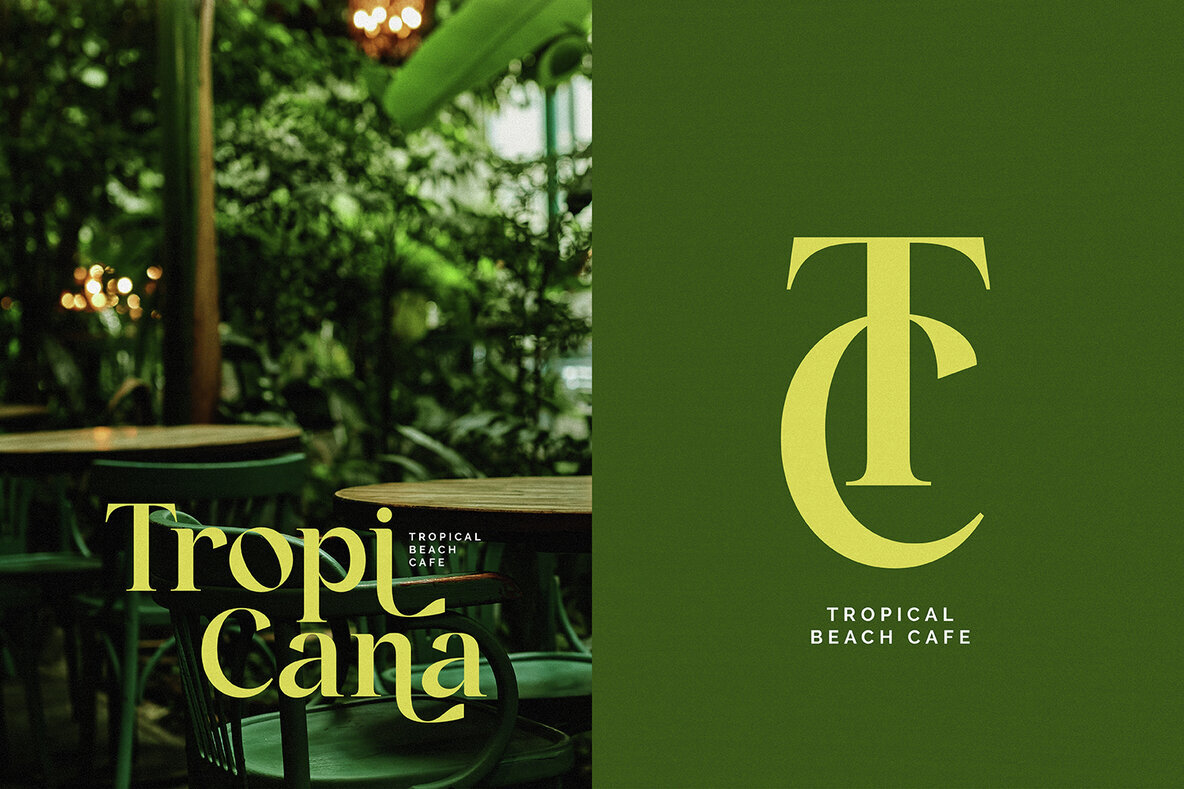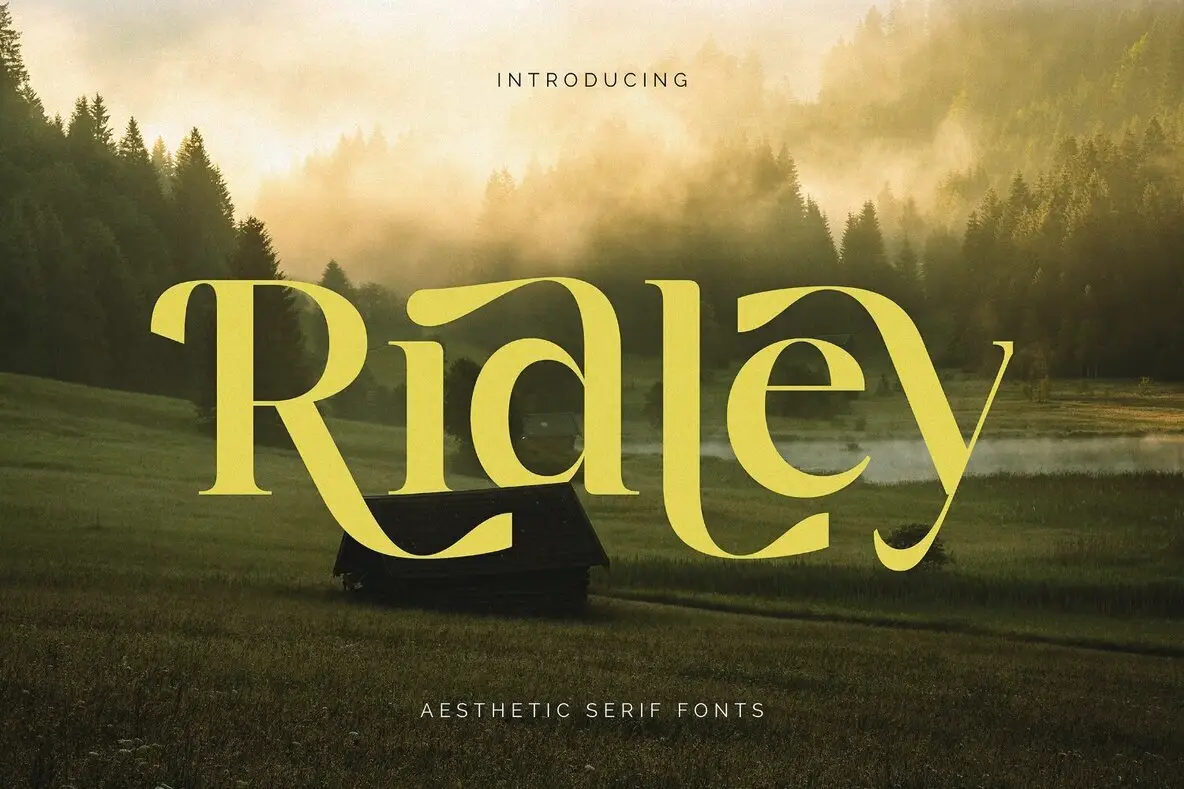
Ridley Font
Ridley Regular
Ridley Oblique
Ridley brings refined style with a nod to vintage aesthetics. This serif font comes in Regular and Oblique styles, offering flexibility for a diverse range of design projects. Its distinctive alternate characters create graceful curves, giving your type an elegant and creative presence without losing clarity. An excellent choice for designers looking to add classic beauty and individuality to their typography, Ridley stands out in both digital and print layouts.Ridley Serif Font: Elegance Meets Retro Character